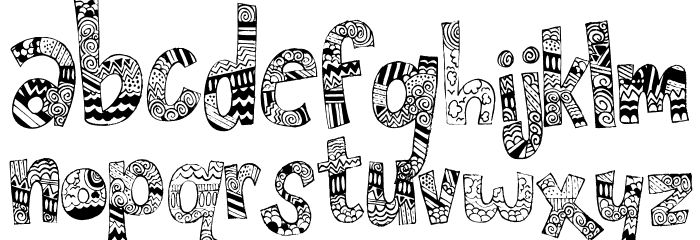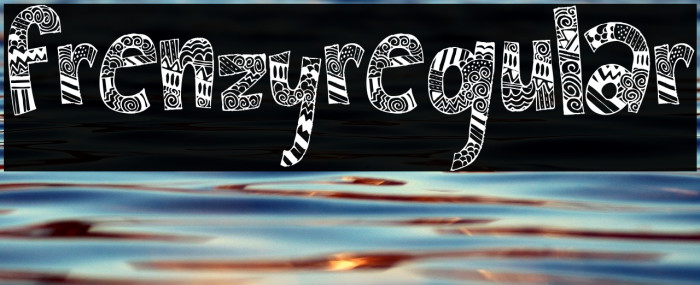
Frenzy-Regular Font
This font is a playful and decorative typeface featuring intricate patterns within each character. The letters are filled with a variety of whimsical designs, including zigzags, dots, and swirls, giving it a hand-drawn and artistic feel. The overall appearance is bold and eye-catching, making it suitable for creative and informal projects. The characters are consistently styled with a uniform thickness, contributing to a cohesive look despite the detailed patterns. This font does not include numbers or special characters, focusing solely on the alphabet.
A decorative, pattern-filled font with a playful and artistic style.
- Proposed Projects: Ideal for children's book covers, playful posters, creative branding, and artistic invitations.